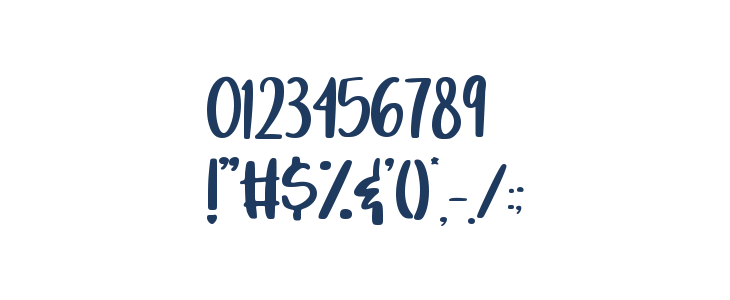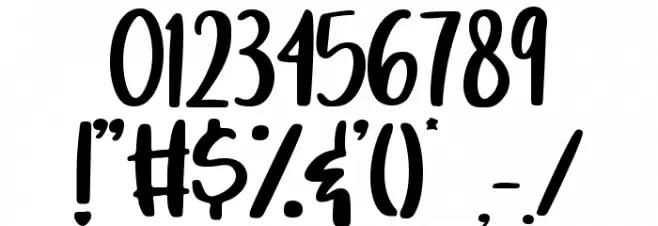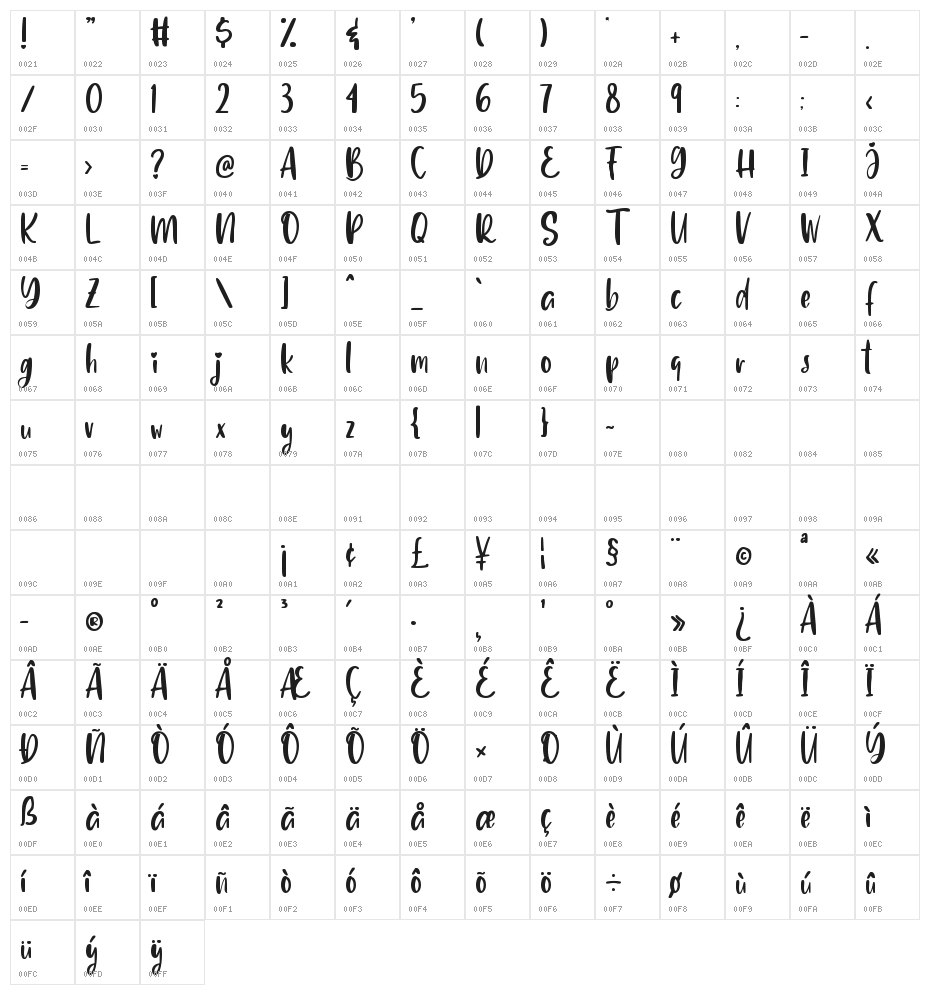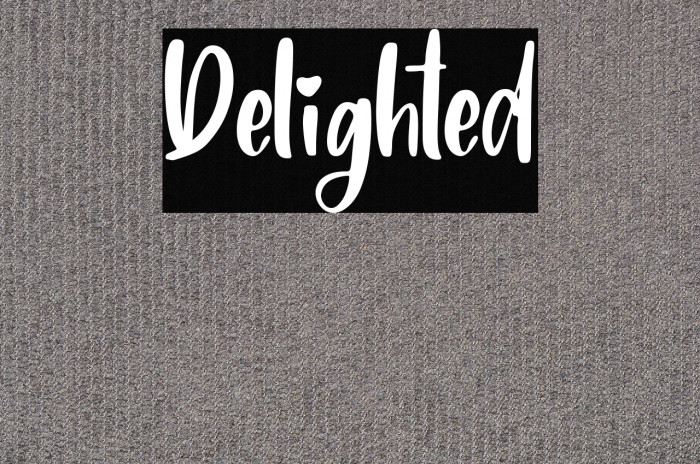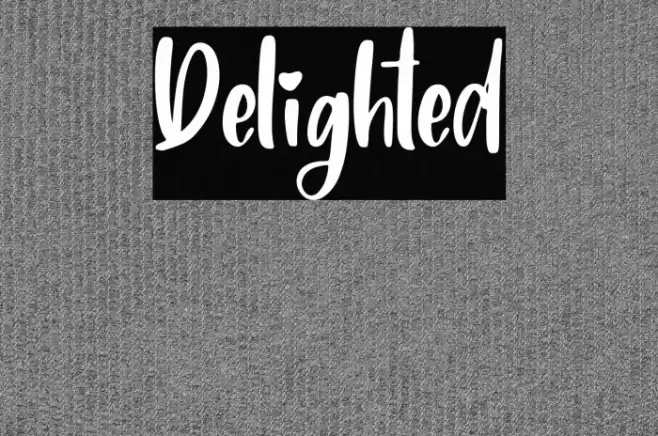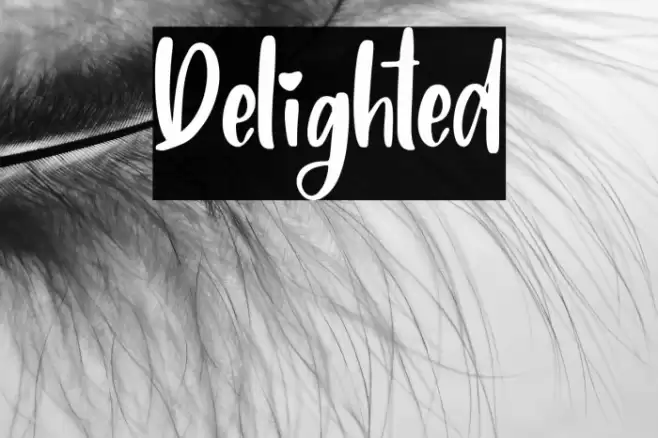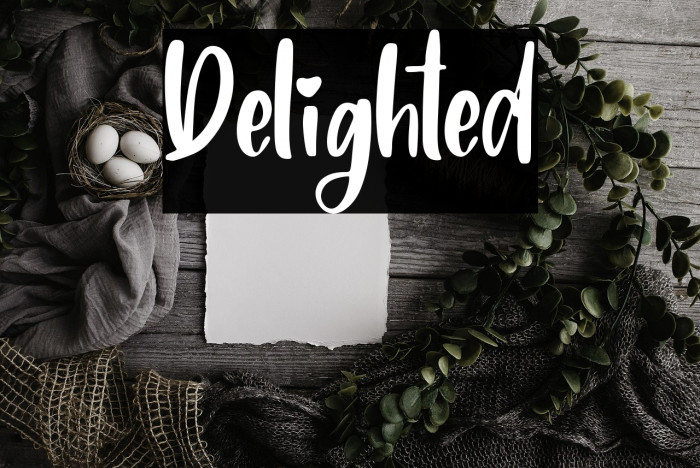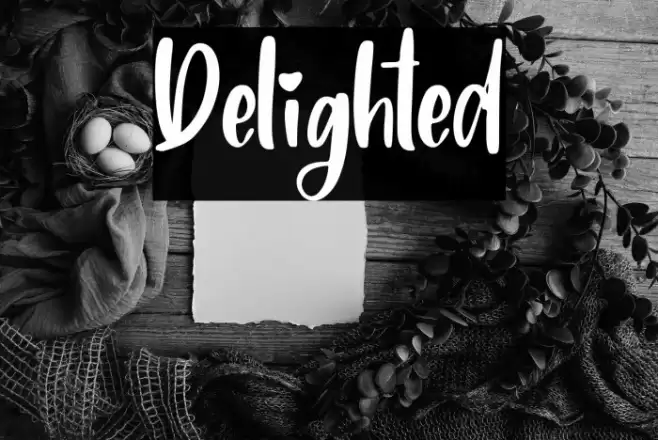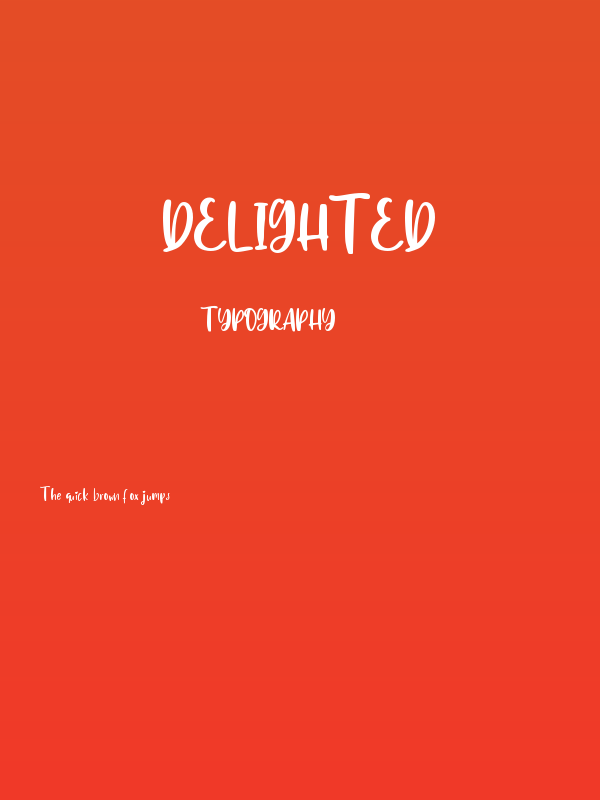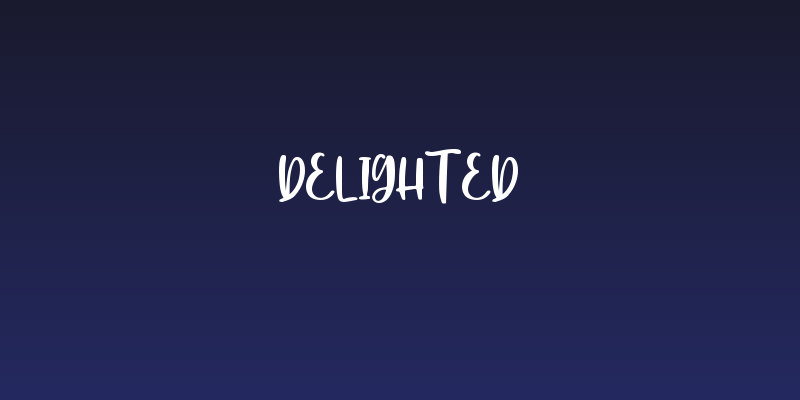
Delighted Font
Delighted Description
This font features a playful and energetic handwritten style, characterized by its bold and flowing letterforms. The uppercase letters are tall and slightly narrow, with a whimsical flair that adds a sense of movement and personality. The lowercase letters maintain a consistent style, with rounded edges and a smooth, continuous flow that mimics natural handwriting. Numbers and special characters are crafted with the same lively spirit, ensuring a cohesive look across all text elements. The font's overall appearance is both modern and approachable, making it suitable for a variety of creative projects.
| Proposed Projects | Ideal for greeting cards, invitations, playful branding, and social media graphics. |